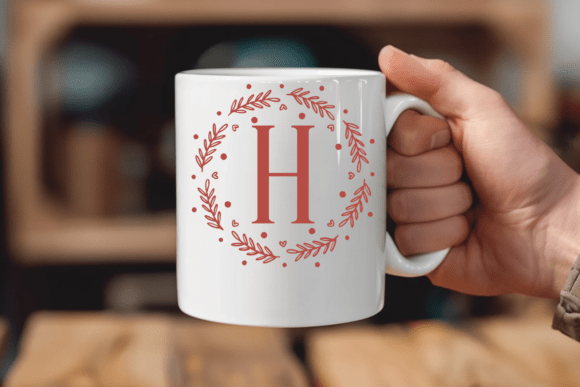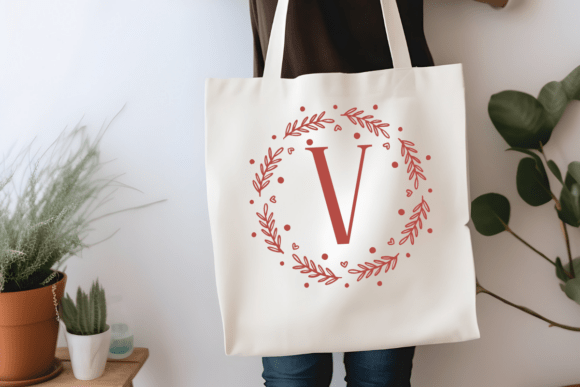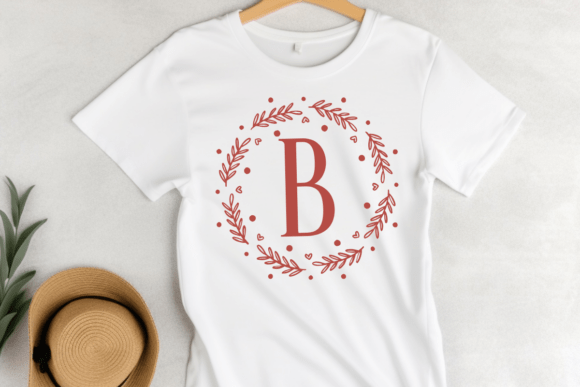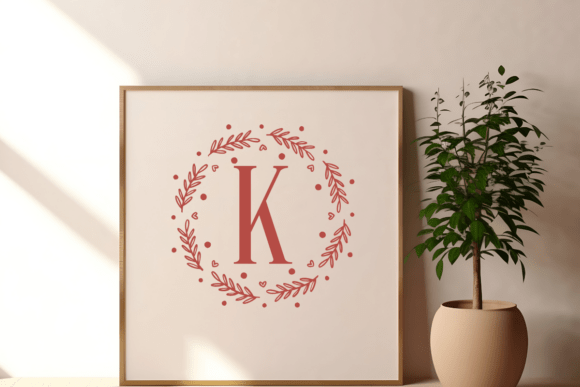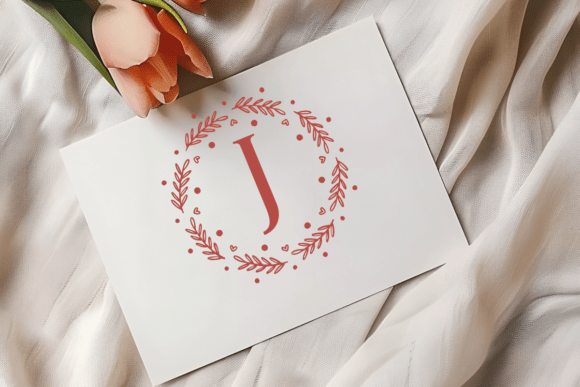
Unlock the Romance with Bouquet Monogram Font
Have you ever stumbled upon a vintage wedding invitation or a beautifully crafted greeting card that left you spellbound? That’s the magic of typography, and it all starts with the right font. As a designer, you know how a single font can evoke emotions and set the tone for an entire design project.
Bouquet Monogram Font is an exquisite decorative font that’s perfect for creating romantic and whimsical designs. With its lovely ornaments and elegant feel, it’s an ideal choice for wedding invitations, stationery art, social media posts, and greeting cards. Whether you’re a seasoned designer or a creative enthusiast, Bouquet Monogram Font is a valuable addition to your design arsenal.
With Bouquet Monogram Font, the possibilities are endless. From bespoke wedding invitations to custom greeting cards, this font will help you bring your designs to life and make them truly special.
Bouquet Monogram Font Key Features
- Size: This elegant monogram font is available in 5 sizes, ranging from 24 to 144 points, making it suitable for various applications.
- Resolution: The Bouquet Monogram Font is designed to be scalable and legible at high resolutions, making it ideal for use in both print and digital media.
- Unique Characteristics: This beautiful monogram font features intricate, hand-drawn designs and delicate curves, perfect for adding a touch of elegance to wedding invitations, stationery, and other special occasions.
- Style: The Bouquet Monogram Font is available in uppercase and lowercase letters, as well as a variety of special characters, making it easy to create unique and personalized designs.
- Font Width: This font has a medium to wide width, making it suitable for use in a variety of contexts, from formal invitations to casual social media posts.
Bouquet Monogram Font Review
First off, I love the whimsical and romantic vibe of Bouquet Monogram Font. ✨ It’s perfect for wedding invitations, baby shower decorations, or any other occasion where a touch of elegance is needed. The font is highly customizable, allowing users to adjust the size, color, and spacing to their liking. ✨
However, there are a few limitations to consider. ⚠️ The font can be quite dense, which may make it difficult to read for some users, especially when used in larger sizes. Additionally, the monogram style may not be suitable for all types of text, such as body copy or headlines that require a more modern look.
Pros and Cons:
- ✨ Highly customizable with options for size, color, and spacing.
- ✨ Whimsical and romantic vibe perfect for special occasions.
- ⚠️ Can be quite dense, making it difficult to read in larger sizes.
- ⚠️ May not be suitable for all types of text, such as modern headlines or body copy.
Overall, I think Bouquet Monogram Font is a beautiful addition to any designer’s toolkit. While it may have some limitations, its versatility and charm make it a great choice for a variety of projects.
Getting the Most Out of the Bouquet Monogram Font
Experiment with different font sizes, colors, and alignments to create unique and eye-catching monograms.
Combine the Bouquet Monogram Font with other design elements, such as flowers or ribbons, to add visual interest.
The Bouquet Monogram Font is perfect for:
Personalized gift tags and cards
Customized merchandise